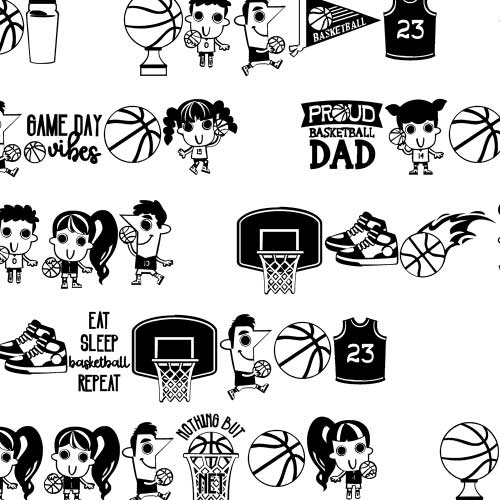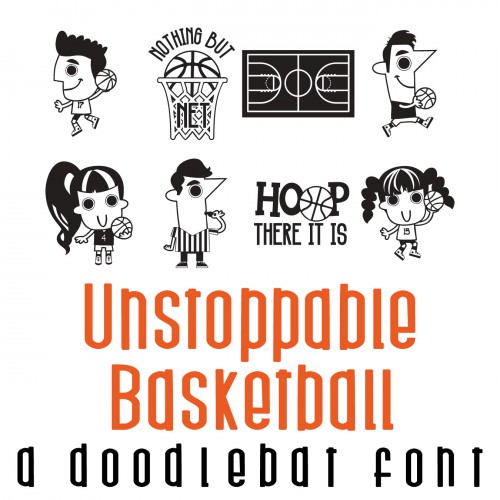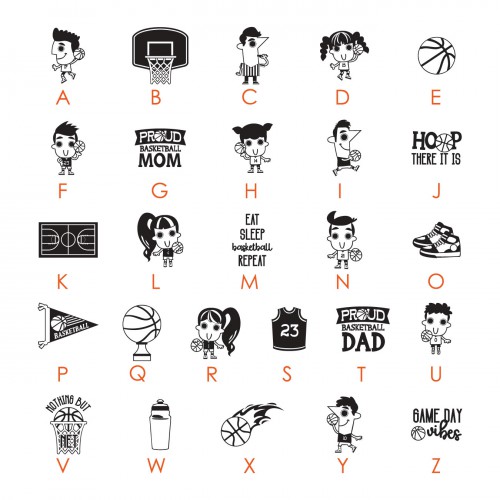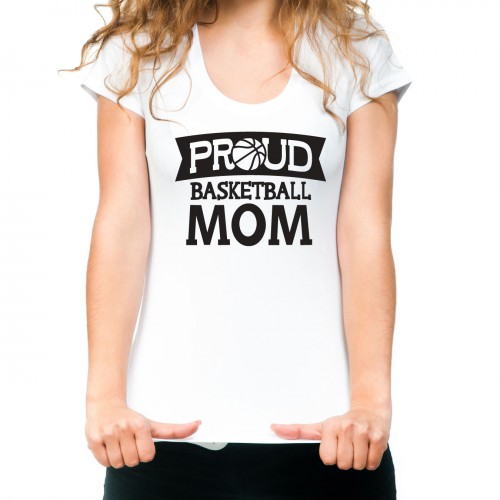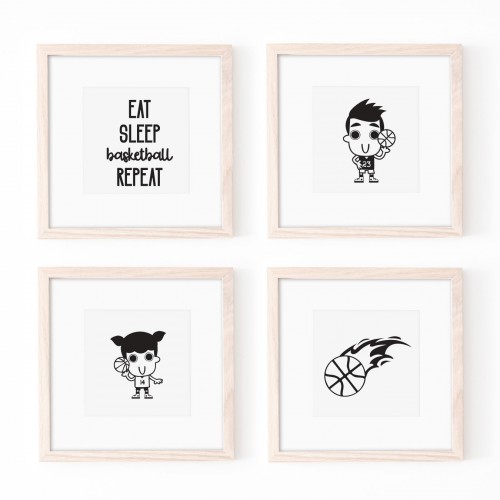
DB Unstoppable - Basketball - DB
This fun doodlebat font features 26 basketball players and iconic images. Perfect for cards, crafts, gifts, decor, planner stickers, scrapbook pages and more!